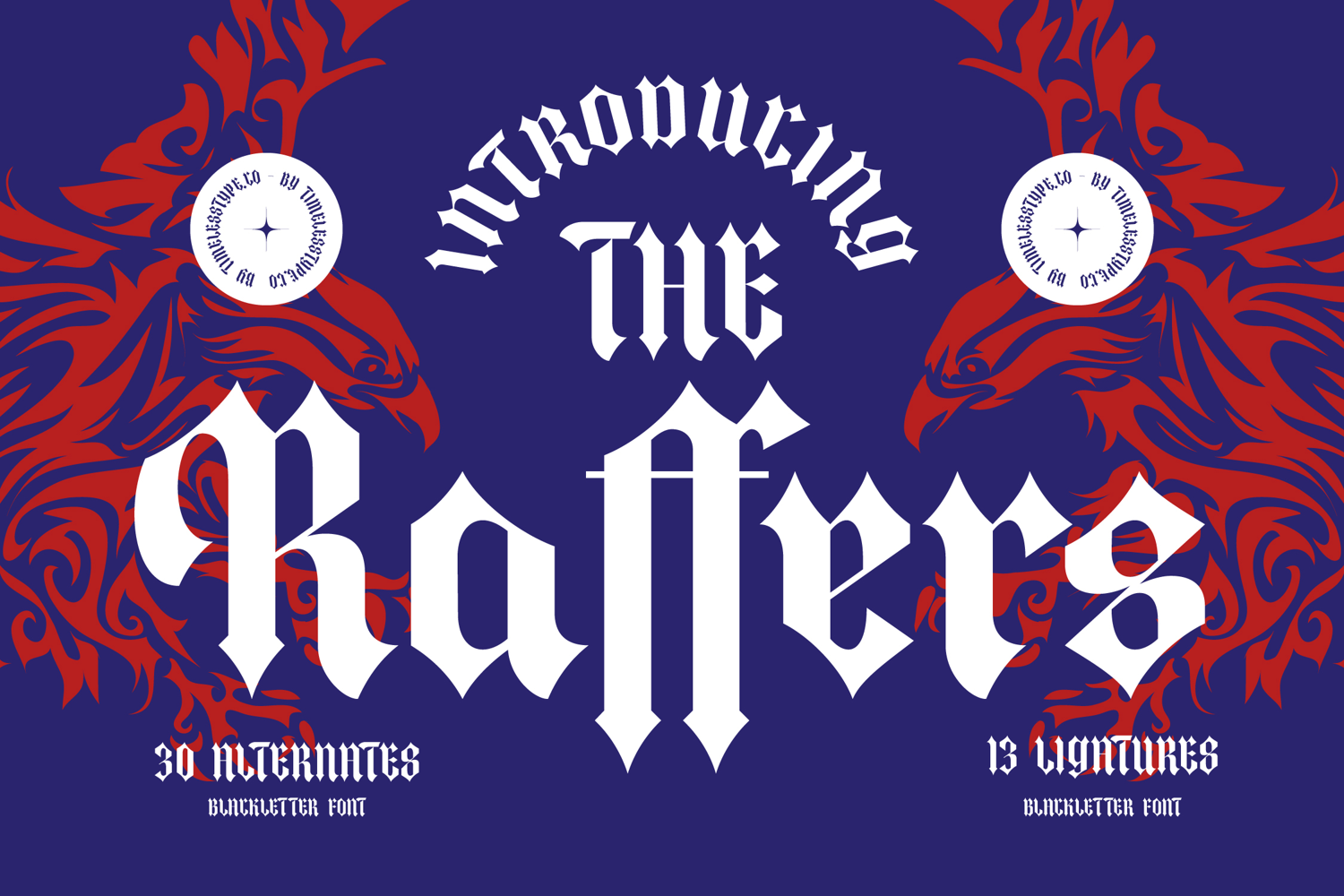
The Raffers - Blackletter Font
The Raffers Italic
The Raffers
The Raffers - Blackletter Font
Unleash the power of timeless tradition with a contemporary edge. Introducing Font The Raffers - Blackletter Font Blackletter, a magnificent typeface that reinterprets the dramatic elegance of classic Blackletter scripts for modern design. This font commands attention, embodying a rich heritage while offering designers an incredibly versatile tool for impact.
Experience the bold and dramatic presence of Font The Raffers - Blackletter Font Blackletter. Its carefully crafted strokes and intricate details evoke a sense of historical grandeur and unmatched sophistication. Perfect for projects demanding a strong, authoritative visual voice, this typeface marries traditional calligraphic artistry with a clean, contemporary execution, ensuring readability without sacrificing its distinctive aesthetic.
With its extensive multilingual support, Font The Raffers - Blackletter Font Blackletter adapts seamlessly across global markets, making it incredibly versatile for international projects. It's ideal for luxury branding, bespoke packaging, captivating event invitations, editorial headers, apparel design, and any application requiring a touch of authentic charm and prestige. This font is perfect for conveying a sense of craftsmanship and a storied past.
Elevate your designs with the distinctive character of Font The Raffers - Blackletter Font Blackletter. This typeface is more than just a font; it's a statement, an investment in design that guarantees an unforgettable impression. Choose Font The Raffers - Blackletter Font Blackletter to infuse your work with a blend of powerful history and modern appeal, setting your creations apart.